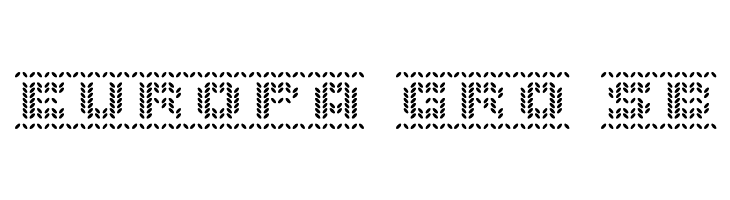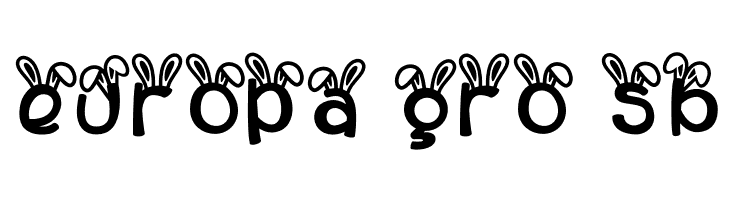
A decorative font with a knitted, sweater-like appearance.
A whimsical, decorative font with curly embellishments and a festive appearance.
A bold, decorative font with a snowflake pattern, perfect for festive themes.
A playful, bold font with a hand-drawn, festive style.
A playful, festive font with a hand-drawn, decorative style.
A playful font with bunny ear embellishments, perfect for festive and cheerful designs.
A playful font with characters enclosed in dreidel shapes, ideal for festive themes.